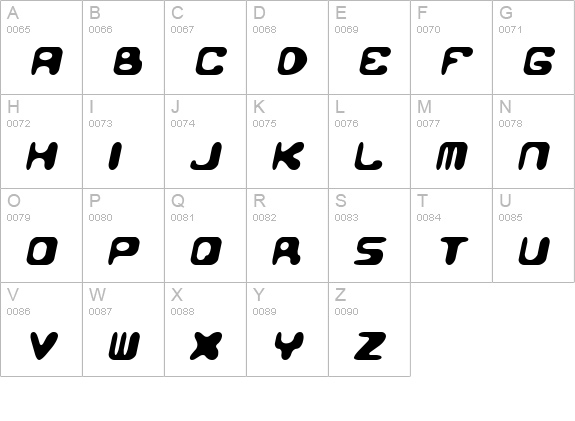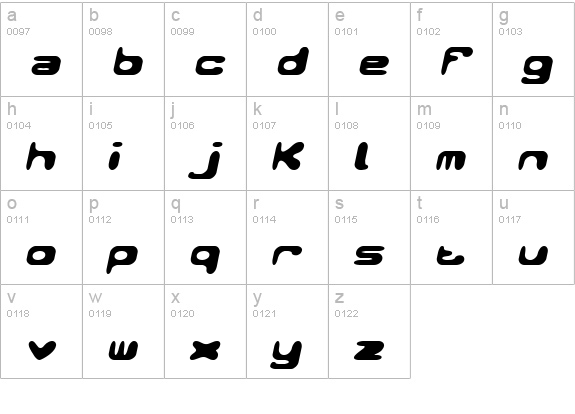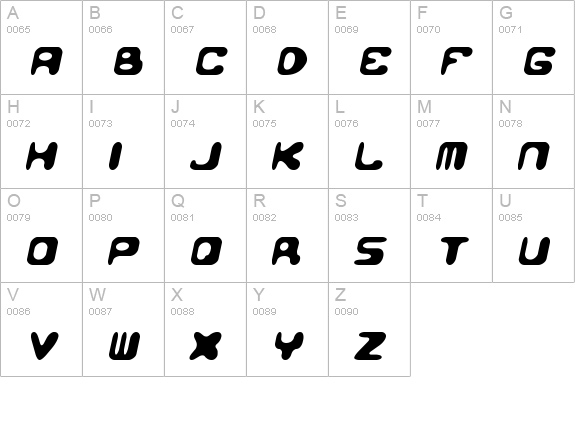
Conduit 2 Italics BRK Font Details
Conduit 2 Italics BRK is a modern and stylish font that exudes elegance and sophistication. With its sleek and streamlined design, this font is perfect for adding a touch of class to any project. The italicized letters give it a dynamic and fluid appearance, making it stand out from the crowd. What sets Conduit 2 Italics BRK apart is its versatility - whether you're creating a sleek logo, designing a professional presentation, or crafting eye-catching marketing materials, this font is sure to make a statement. Its clean lines and contemporary aesthetic make it a must-have for designers looking to elevate their work. And the best part? Conduit 2 Italics BRK is **free** to download at FontsMarket.com. That's right, you can add this stunning font to your collection at no cost, making it an affordable yet high-quality option for all your design needs. Don't miss out on the opportunity to enhance your projects with Conduit 2 Italics BRK - download it today!